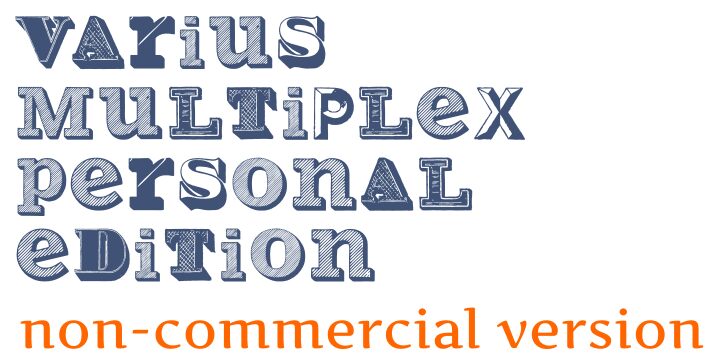
Varius Multiplex by Paulo W. is a free decorative display font built around deliberately mismatched letter styles. Heavy slabs, soft serifs, compressed forms, sharp italics, and striped or crosshatched fills appear side by side. Every letter takes a visibly different approach.
Its cut-and-paste, ransom-note character suits music posters and album covers with an unruly collage theme. It can also turn editorial spreads or event flyers into playful typographic patchworks rather than conventional headings. On packaging, the changing shapes and printed textures can become part of the illustration, echoing labels, stamps, and clipped type.
Varius Multiplex Personal Edition is a non-commercial version with a different layout from the original Varius Multiplex Multiformis family by Intellecta Design.